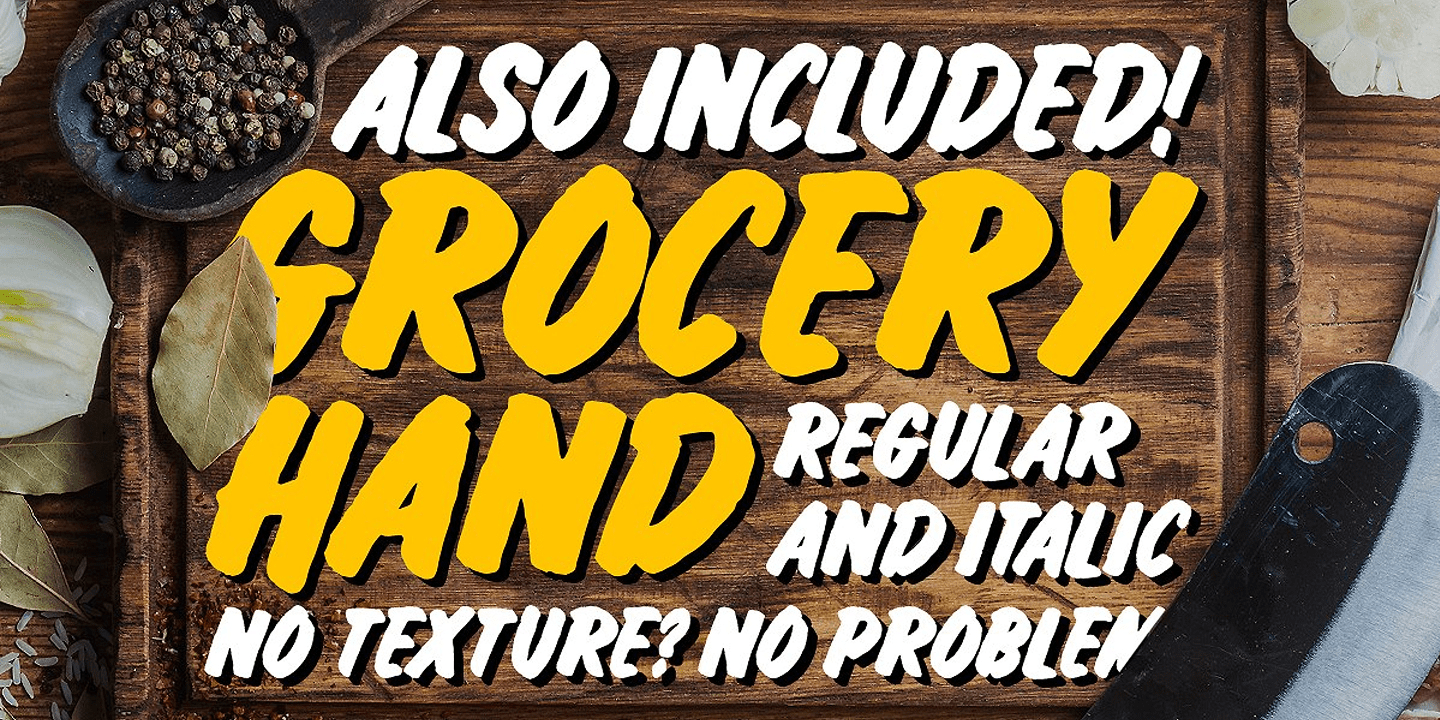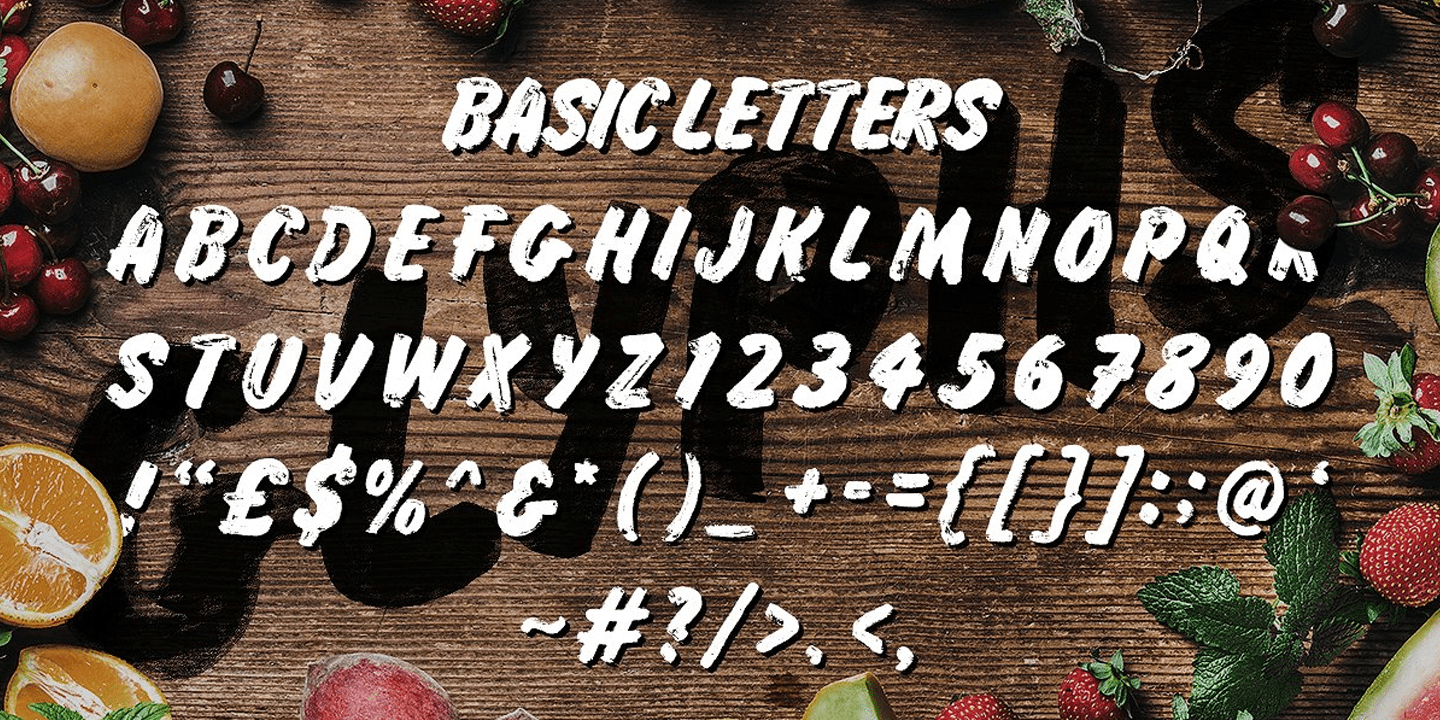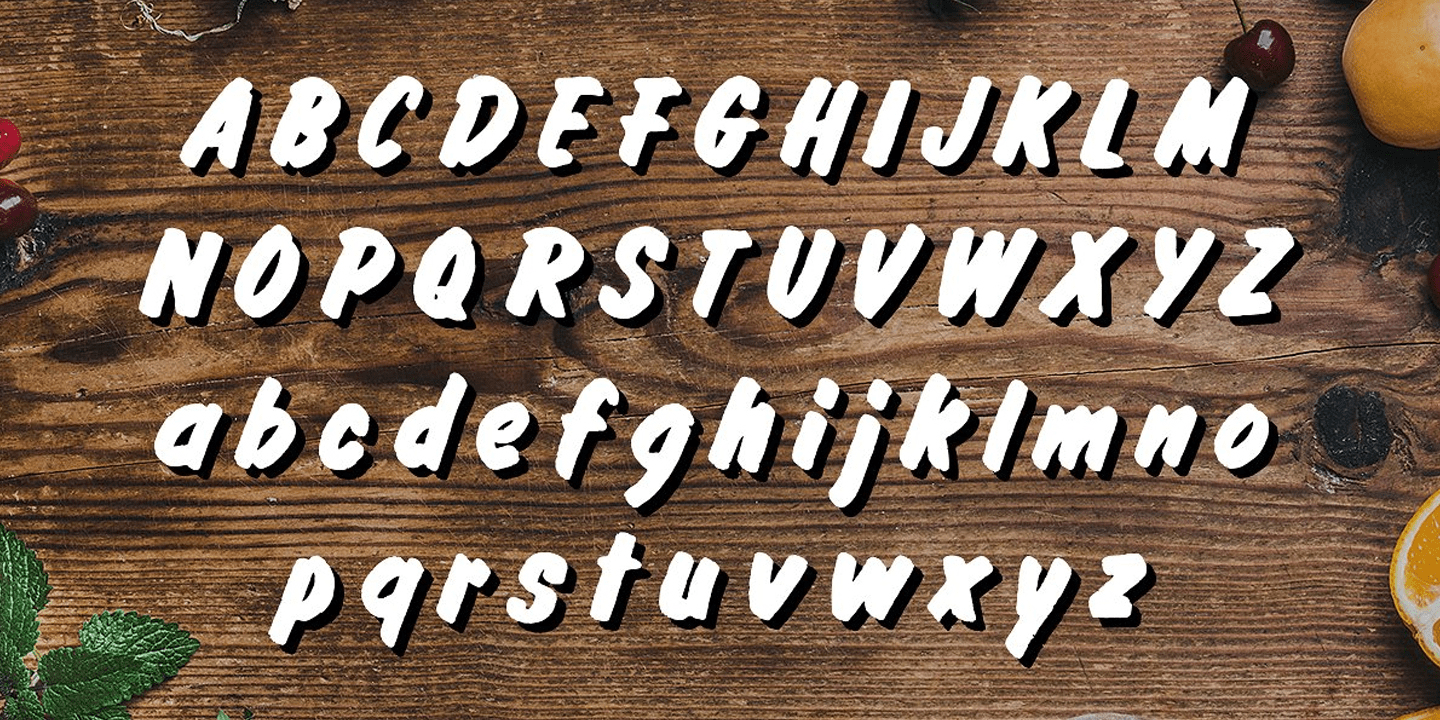
About Grocery Brush
I'm very pleased to introduce you to the Grocery Font Family, a realistic brush script inspired by classic signwriting. It includes a rough and ready brush script (Grocery Brush) and a cleaner alternative (Grocery Hand) both inspired by classic food-market…